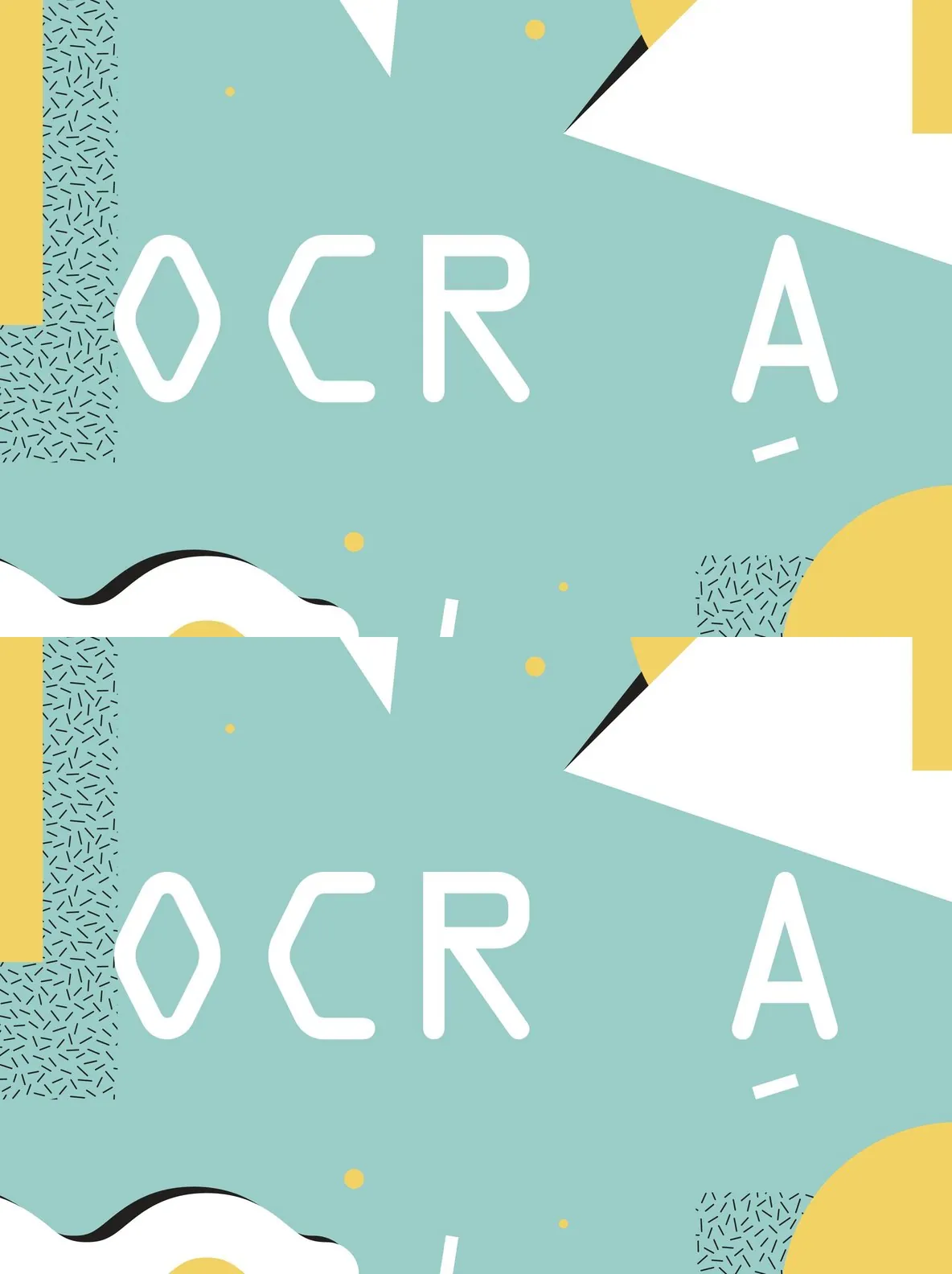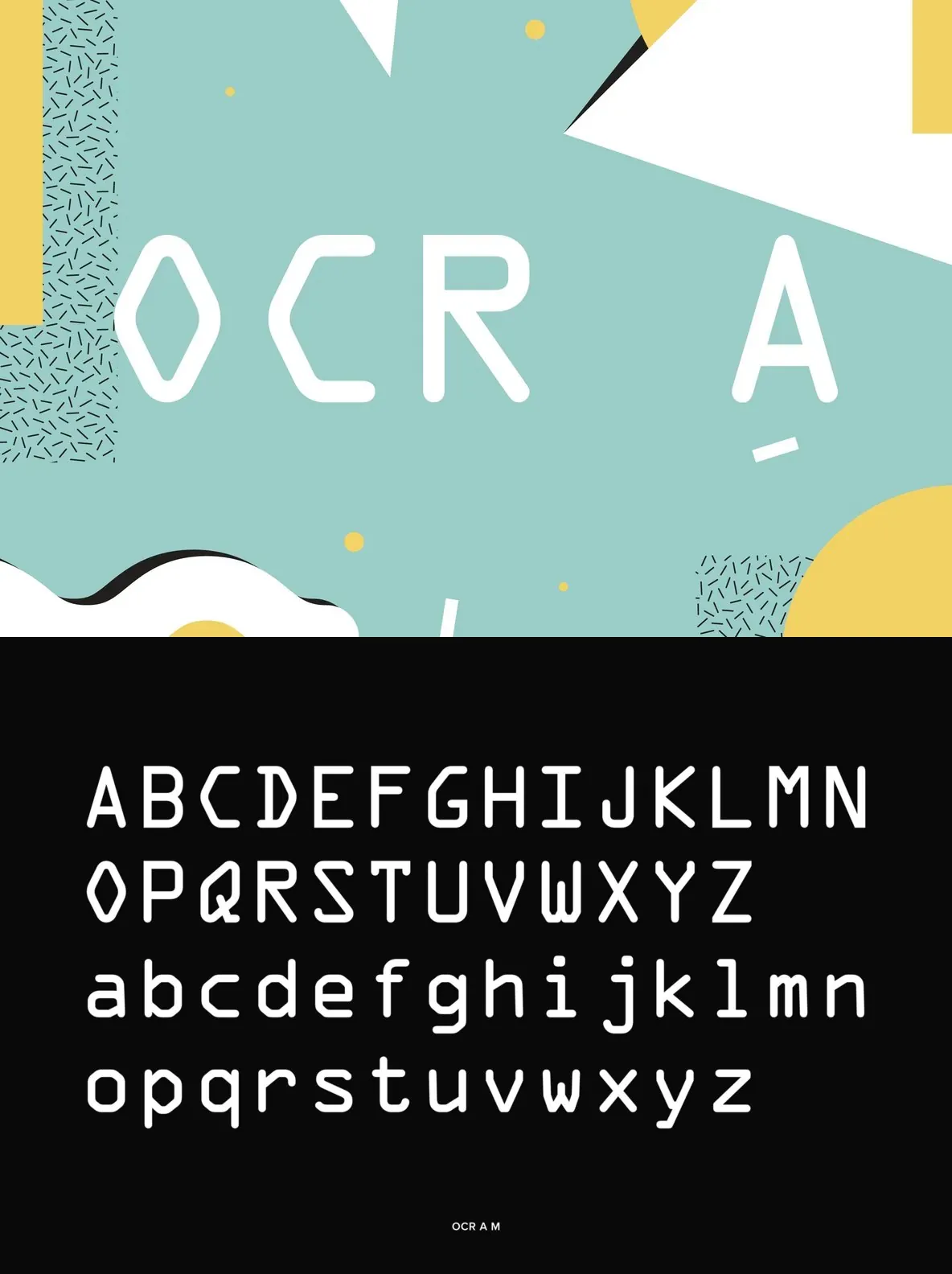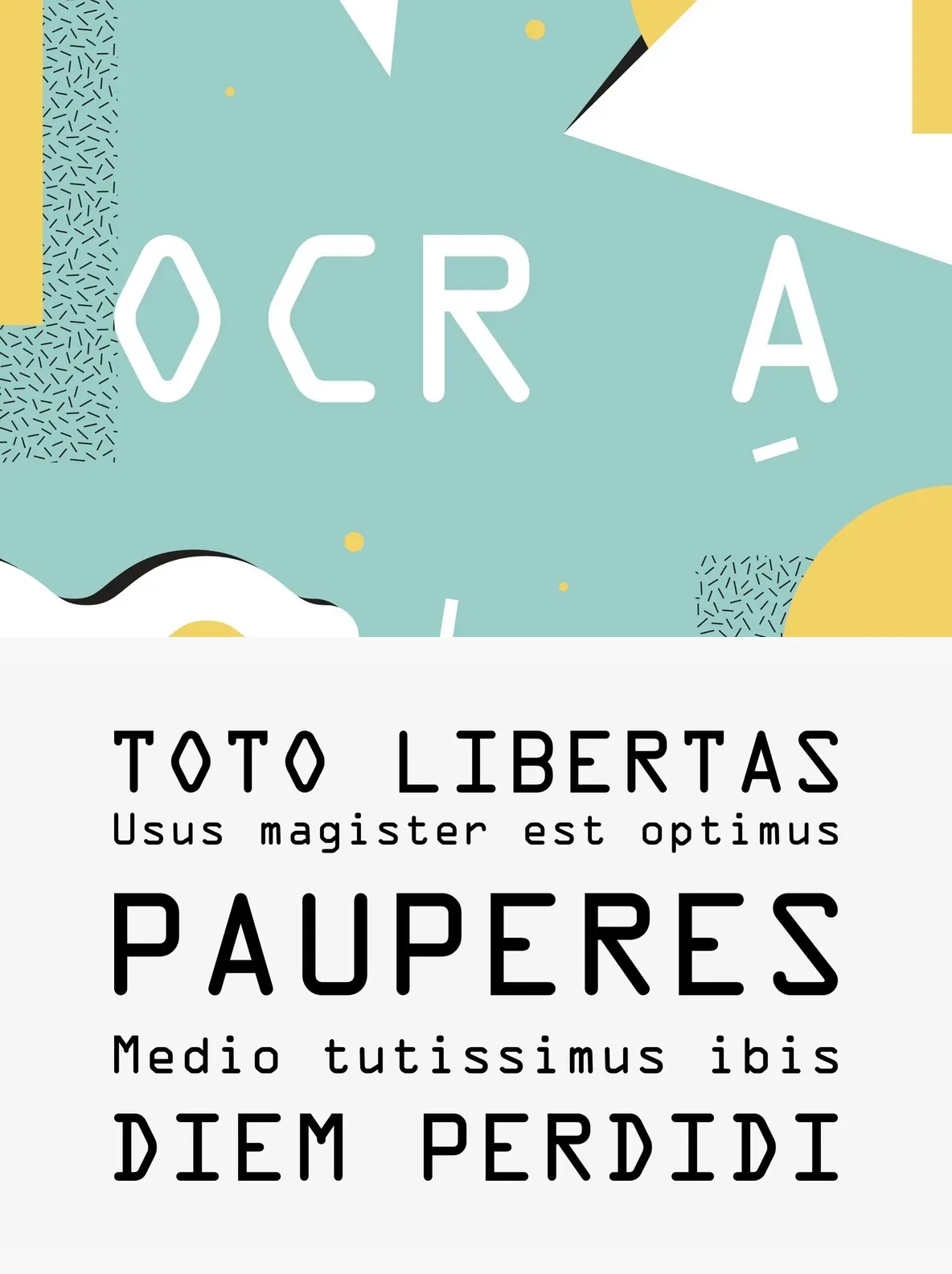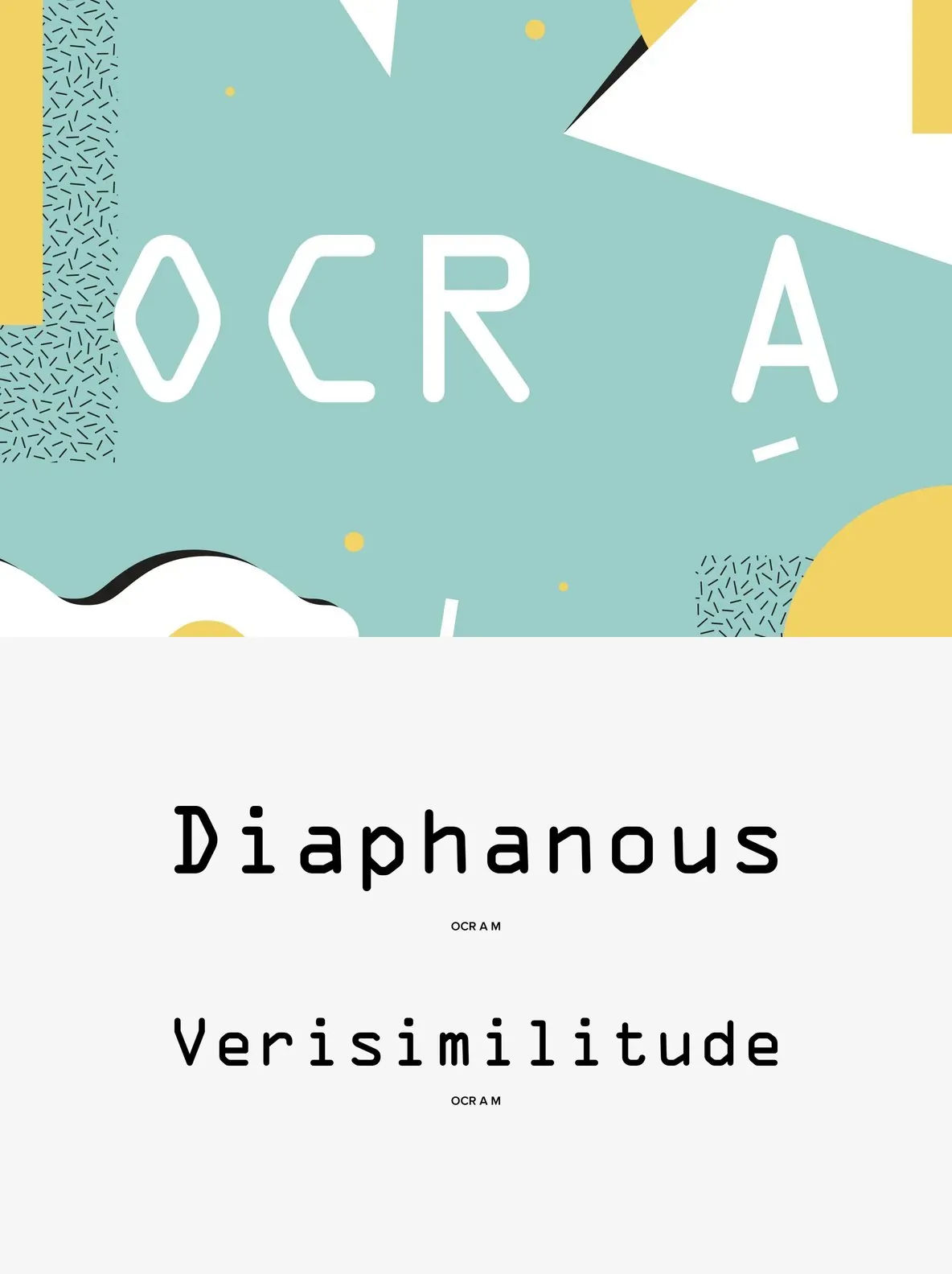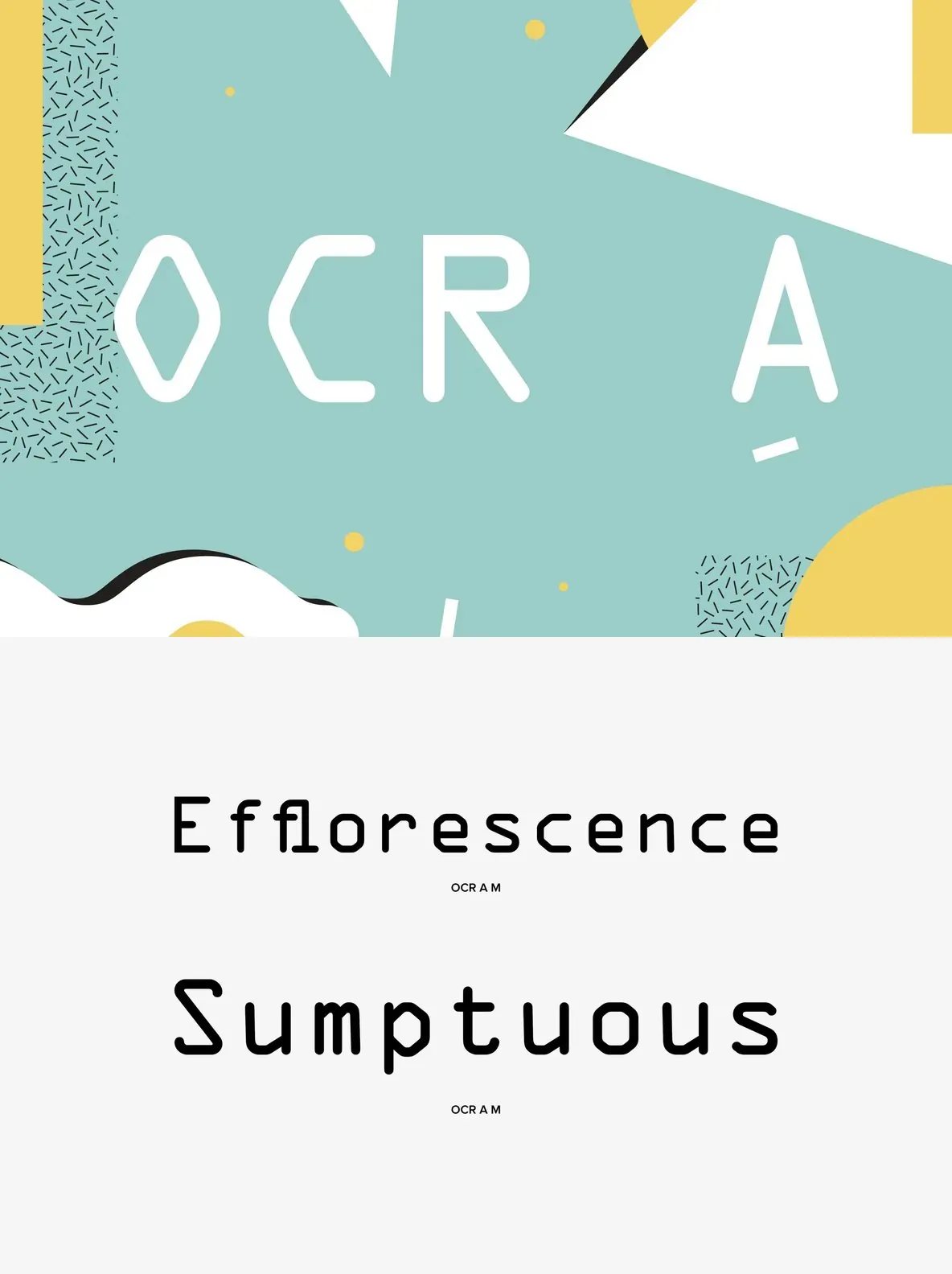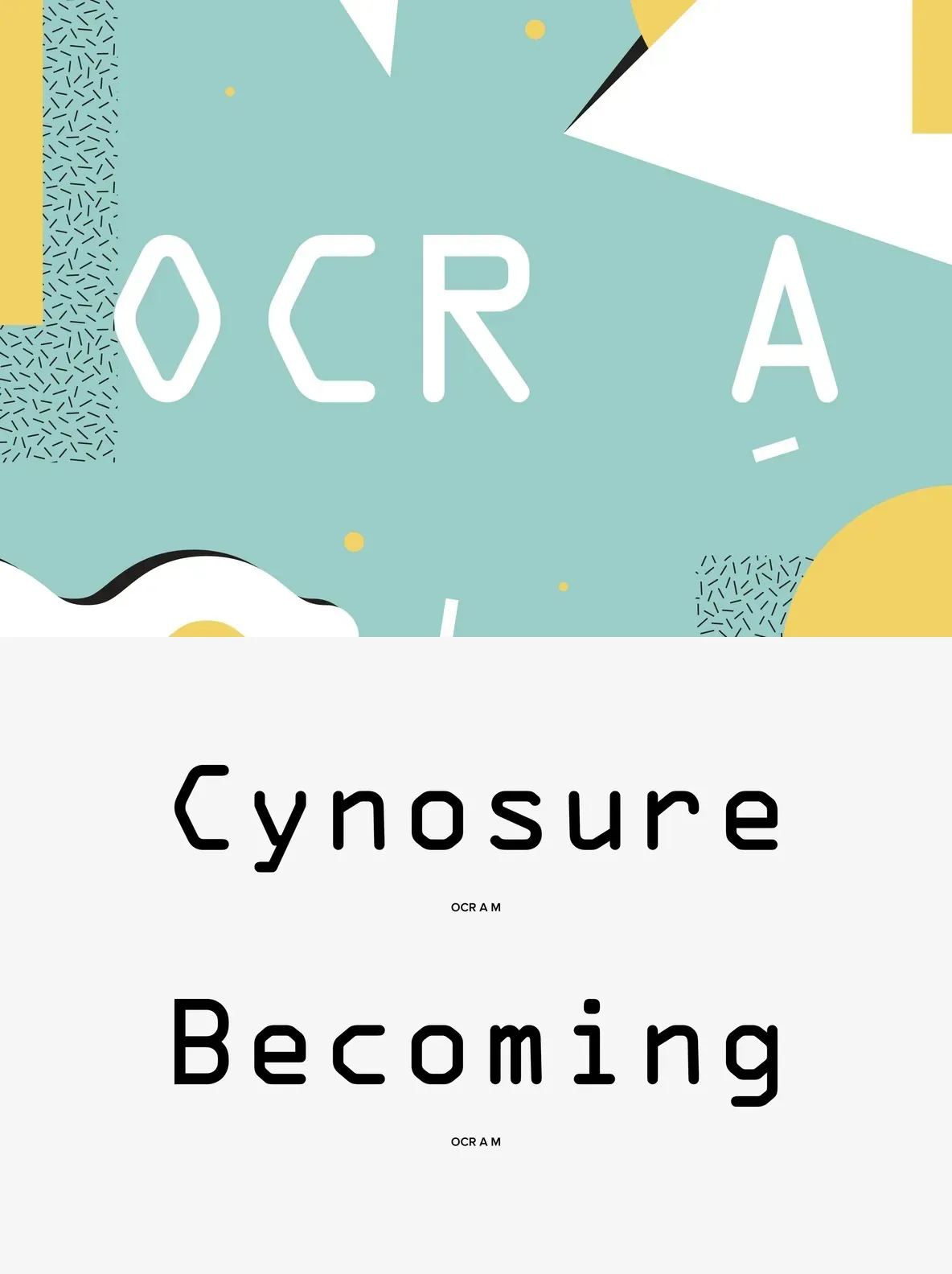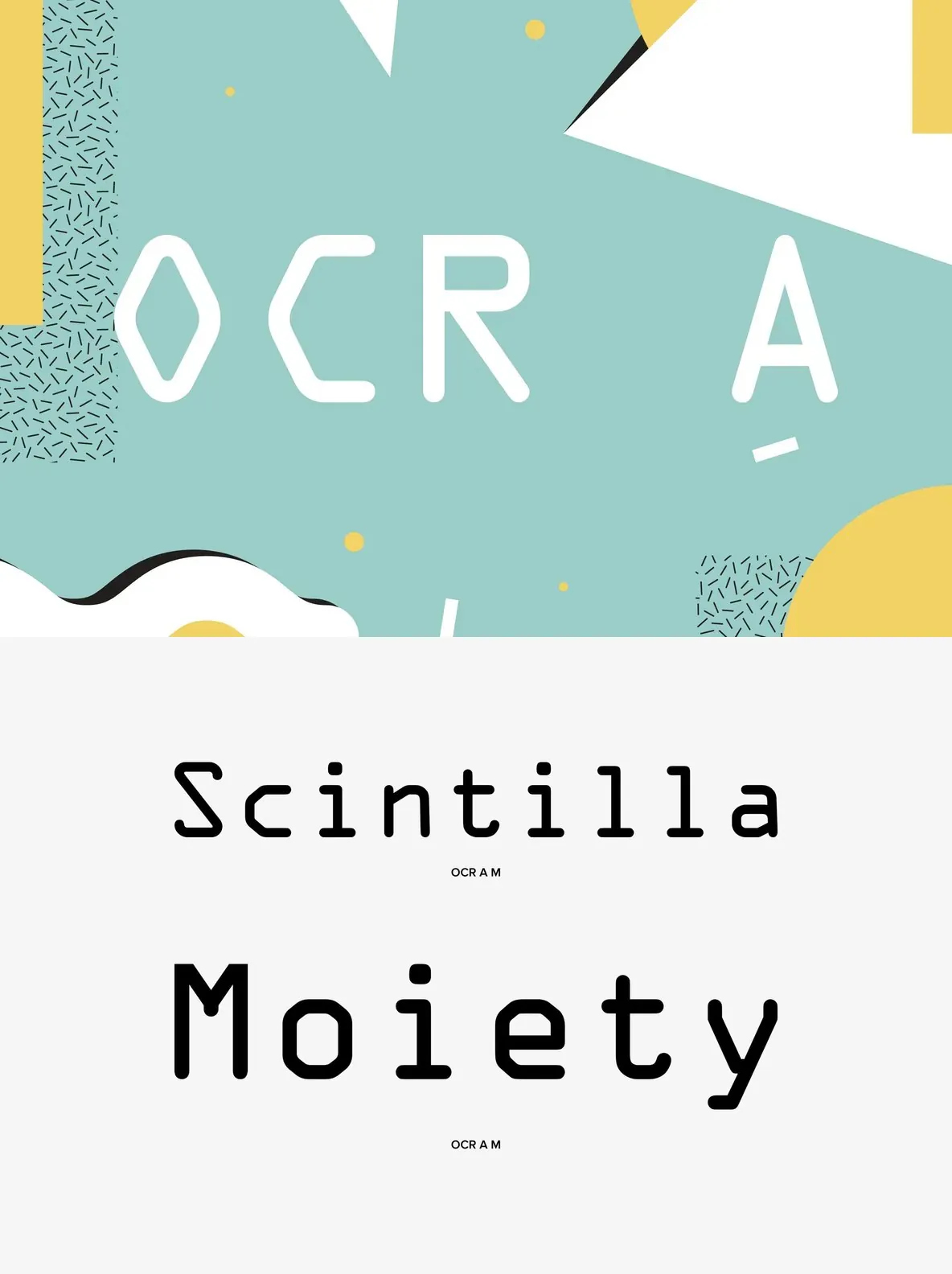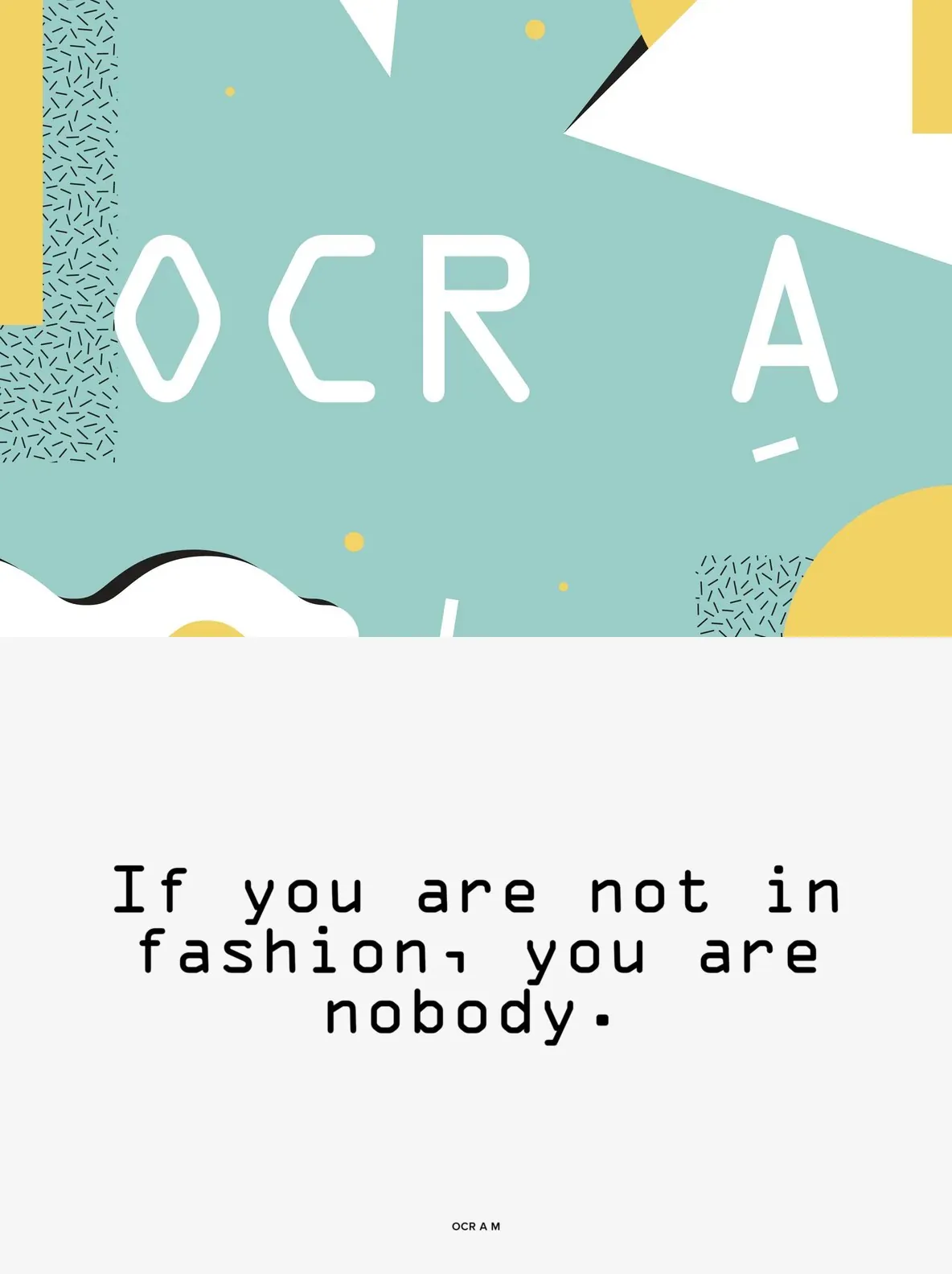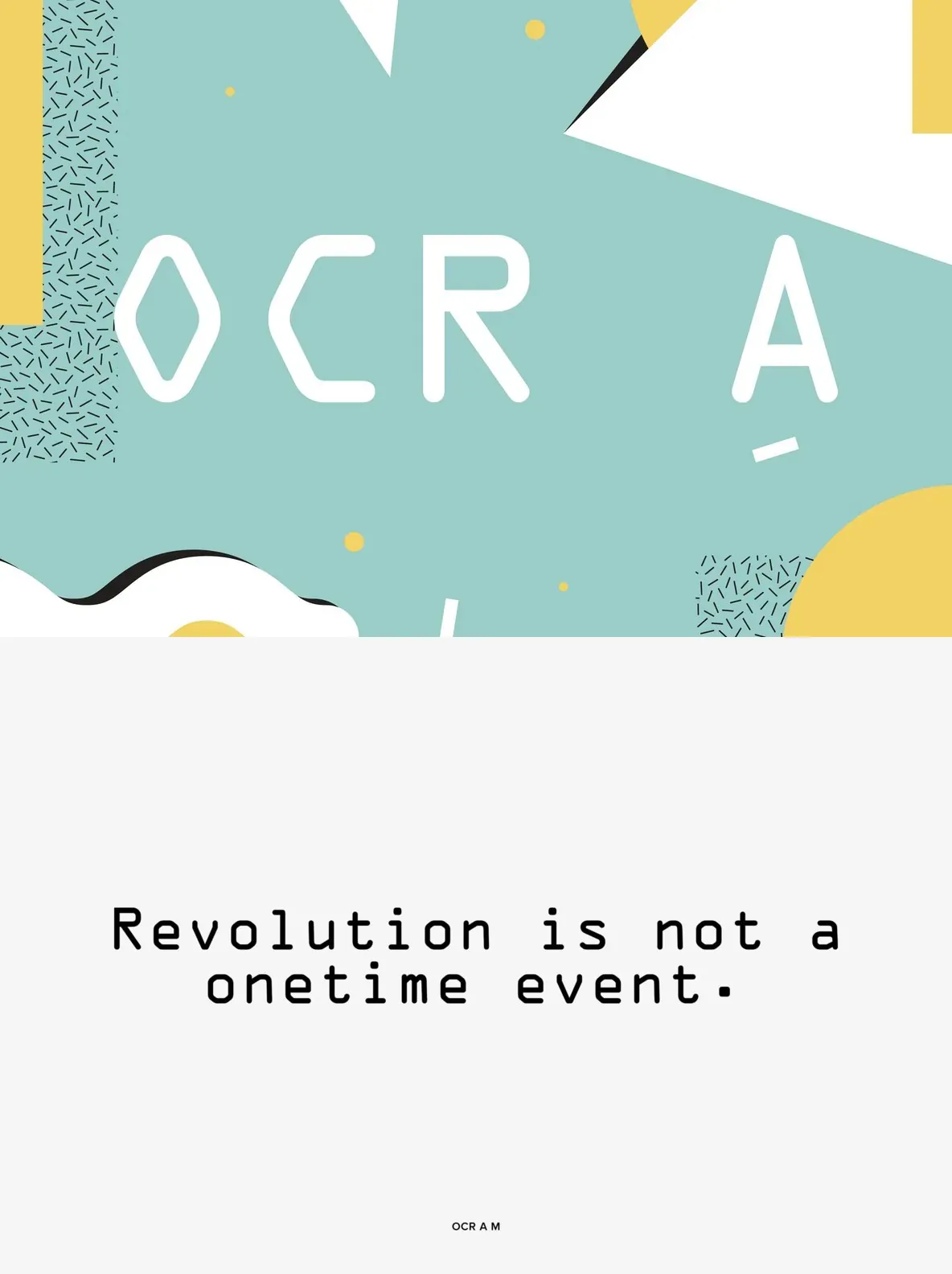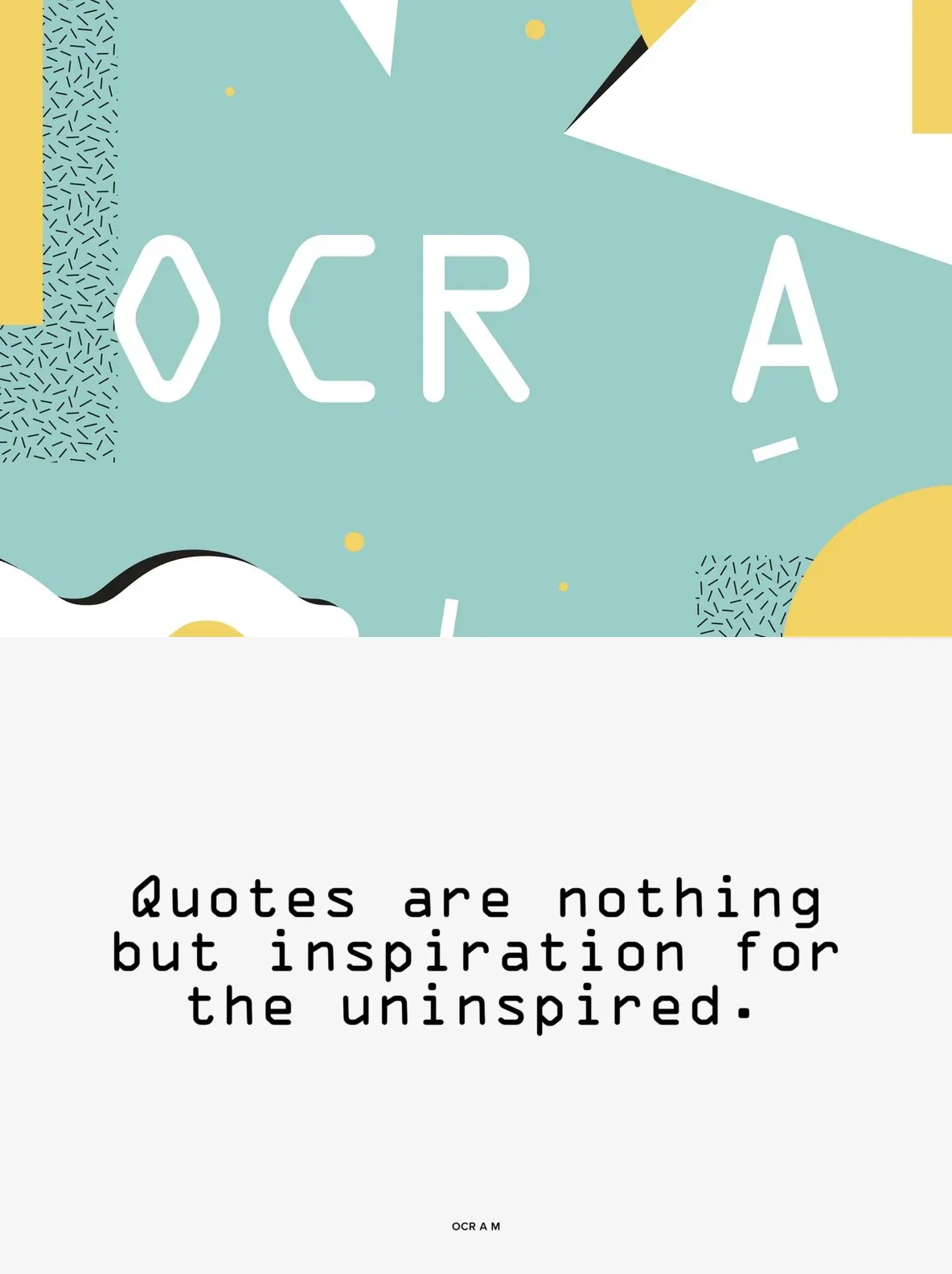
OCR A Font
OCR A: The Font Behind Early Optical Character Recognition
OCR A emerged in response to the demand for machine-readable typefaces during the early development of computer optical character recognition. Designed with distinct, robust strokes, this font bridges the gap between digital processing needs and human readability.
The simplicity of each character reduces ambiguity for scanning technology while maintaining a clear and familiar appearance for viewers. OCR A remains an iconic choice for applications requiring precise distinction of letters and numbers, such as barcodes, serials, and forms.
Features
Bold, uniform line weight for optimal machine recognition
Highly legible shapes ideal for technical and industrial uses
Classic design derived from early computing history